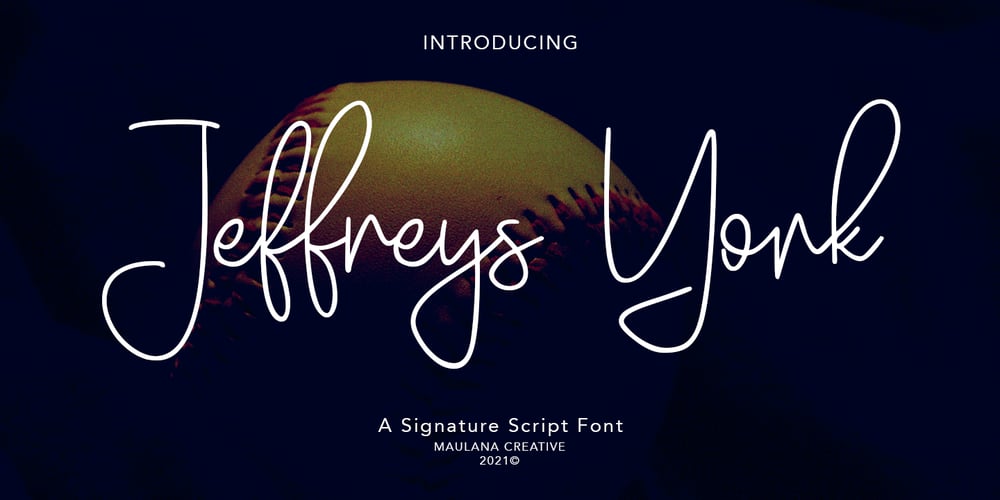
Jefferys York Font Family was designed by Gilang Maulana and published by Maulana Creative. Jefferys York contains 1 styles and family package options. Jefferys York is a signature script font With clean monoline stroke, condensed, upright and fun character. It has Opentype features of ligatures and lowercase alternates, To give you an extra creative work. Jeffreys York script font support multilingual more than 100+ language. This font is good for logo design, Social media, Movie Titles, Books Titles, a short text even a long text letter and good for your secondary text font with sans or serif. Make a stunning work with Jeffreys York signature font. Cheers, MaulanaCreative